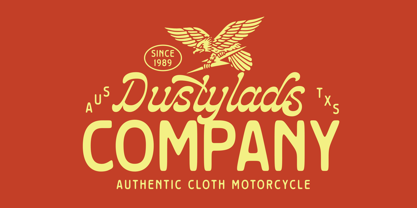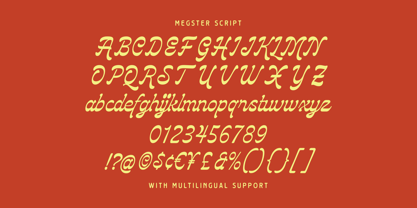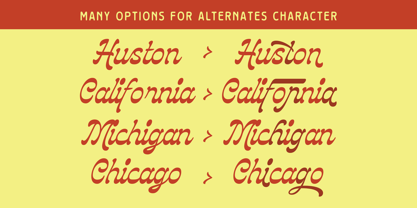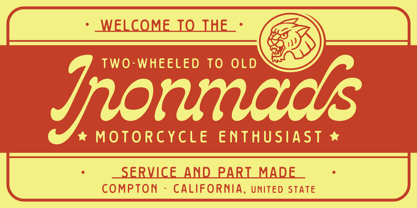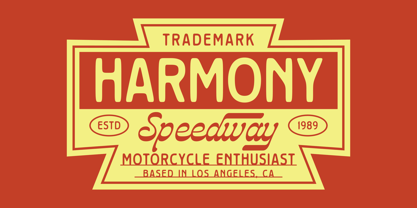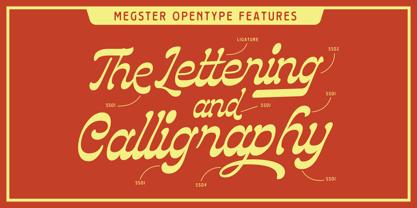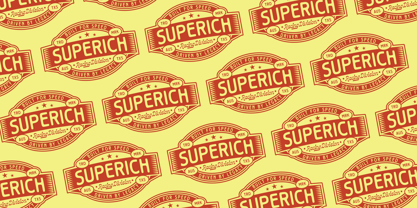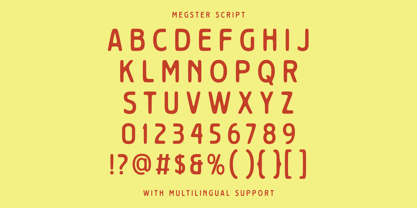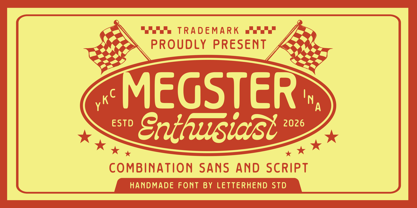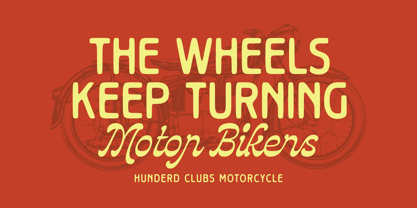
Megster
by Letterhend
The Megster Font Family was designed by Hendry Juanda and published by Letterhend. Megster contains 2 styles and family package options. More about this family
Megster feels like a full-throttle ride into vintage racing culture—bold, fun, and packed with character. The combination of a rounded, confident sans and a smooth, energetic script creates a perfect harmony between structure and motion, giving your design that classic badge-style charm. Features : Uppercase & lowercase Script & Sans Numbers and punctuation Alternates Character Multilingual Support PUA encoded